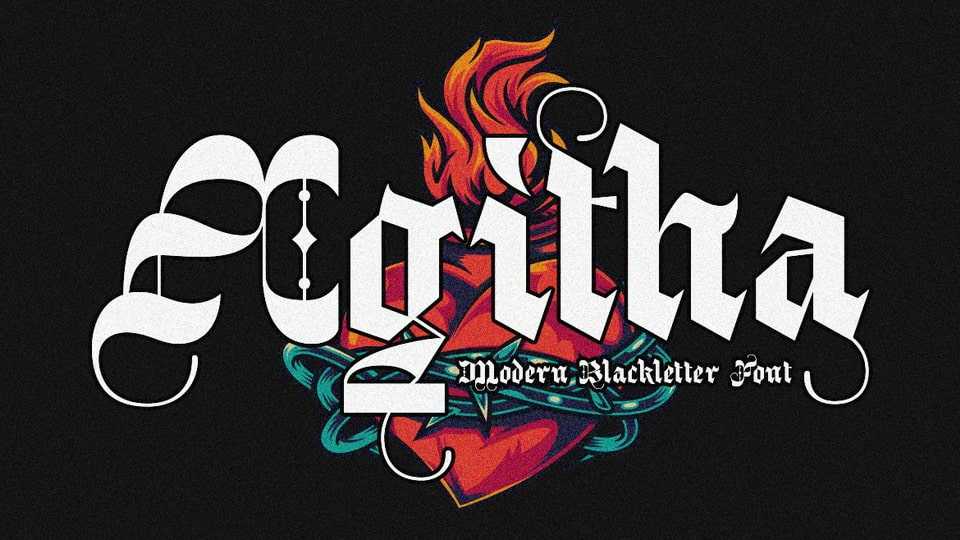
Download PC Agitha font, a modern blackletter typeface where tradition meets modernity in a sleek fusion. Perfect to elevate your designs with this versatile and sophisticated font, perfect for logos, posters, merchandise, and more.